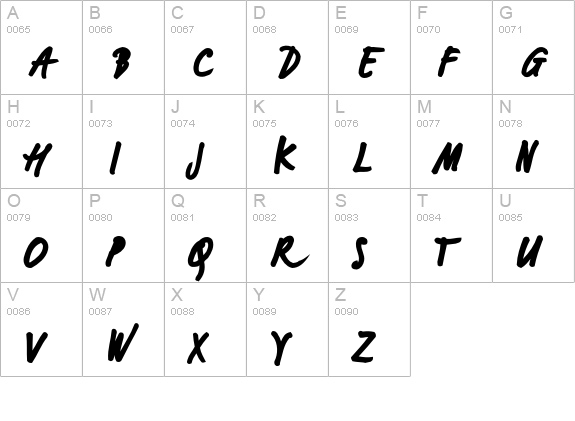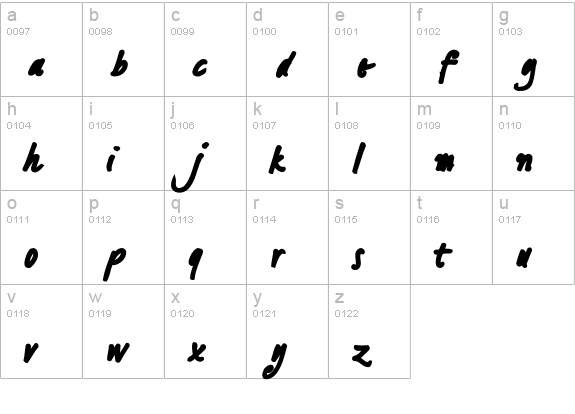
LucasHandFeetBlack Font Details
Introducing LucasHandFeetBlack font, a unique and eye-catching typeface that exudes a playful and artistic vibe. This font features hand-drawn elements combined with a modern twist, making it perfect for adding a touch of creativity to your designs. The bold and dynamic characters of LucasHandFeetBlack font are sure to make your text stand out and leave a lasting impression. What's even better is that LucasHandFeetBlack font is available for free download at FontsMarket.com. Now you can easily access this stylish and versatile font to enhance your projects without breaking the bank. Whether you're working on posters, invitations, branding, or any other design project, LucasHandFeetBlack font is a fantastic choice to add a touch of personality and flair. Download it today and let your creativity shine with this amazing font!